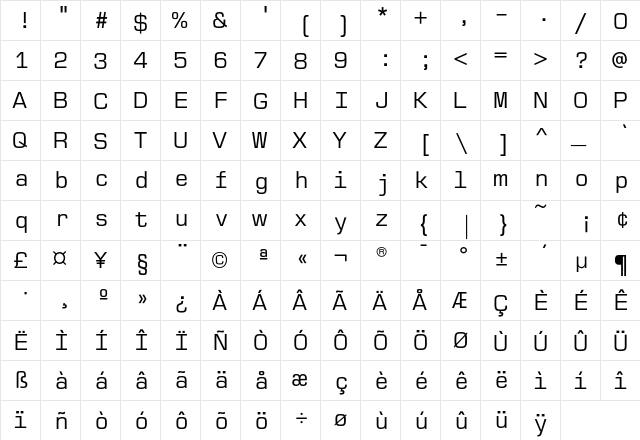
EurostileMonoEF Regular
Design Context for EurostileMonoEF Typeface
EurostileMonoEF brings the precise, column-aligned rhythm of monospaced typography to designs that value technical clarity and systematic order.
Pro Tip: Use EurostileMonoEF with slightly increased line-height for extended reading — fixed-width spacing can feel dense in longer passages without extra breathing room.